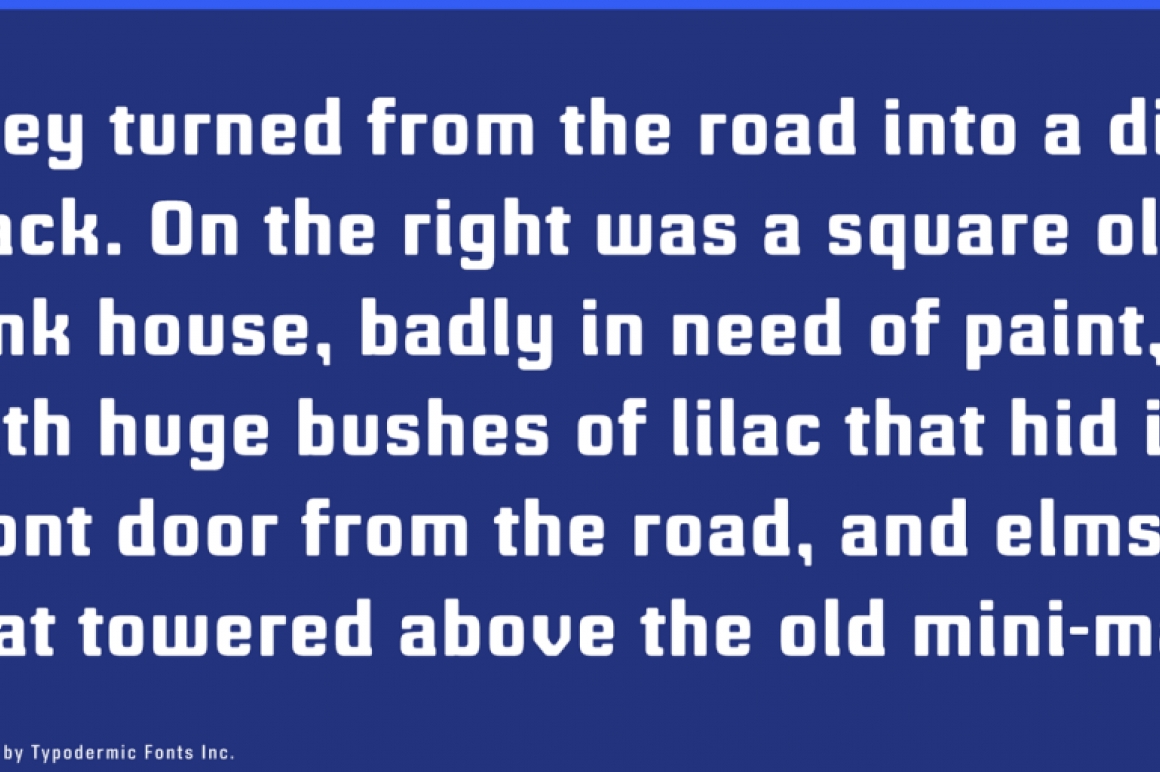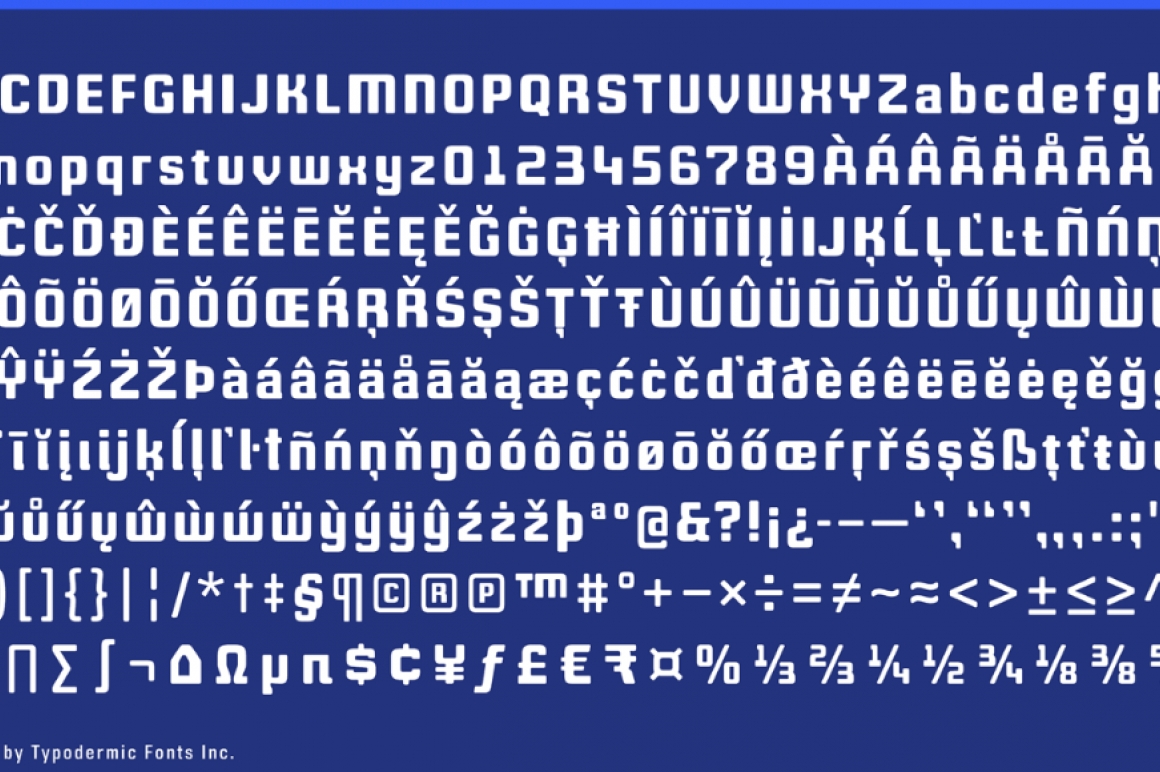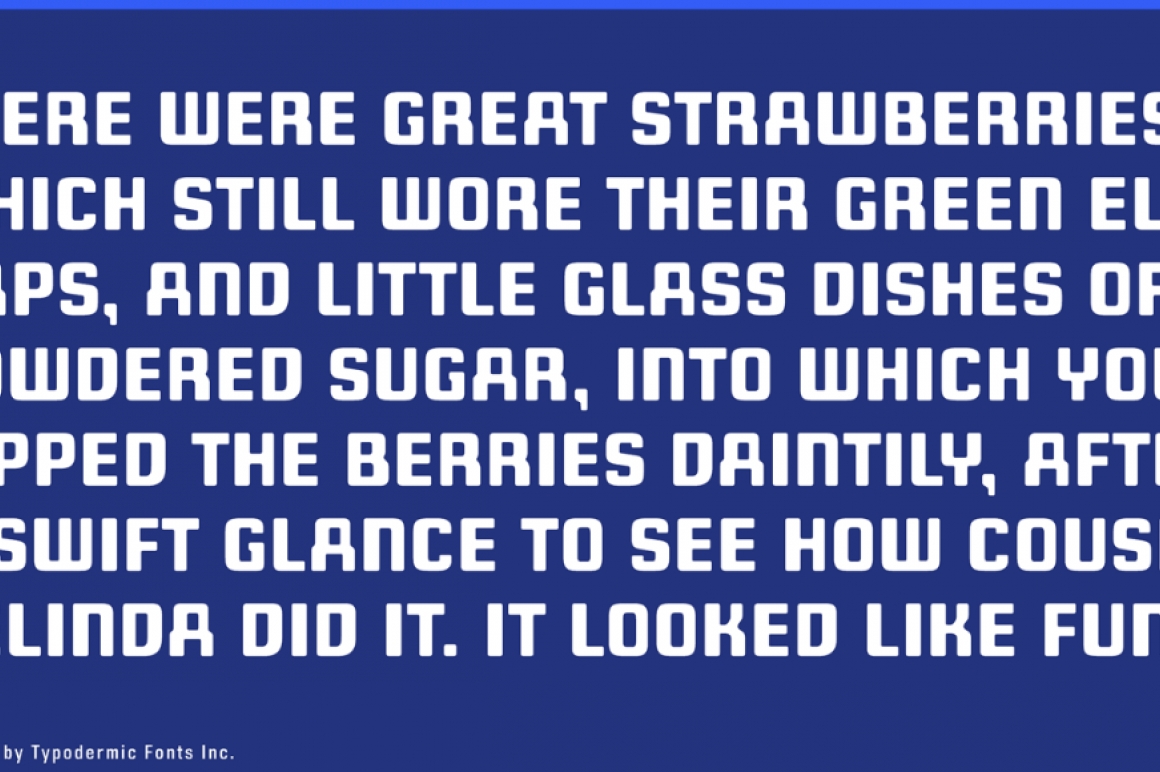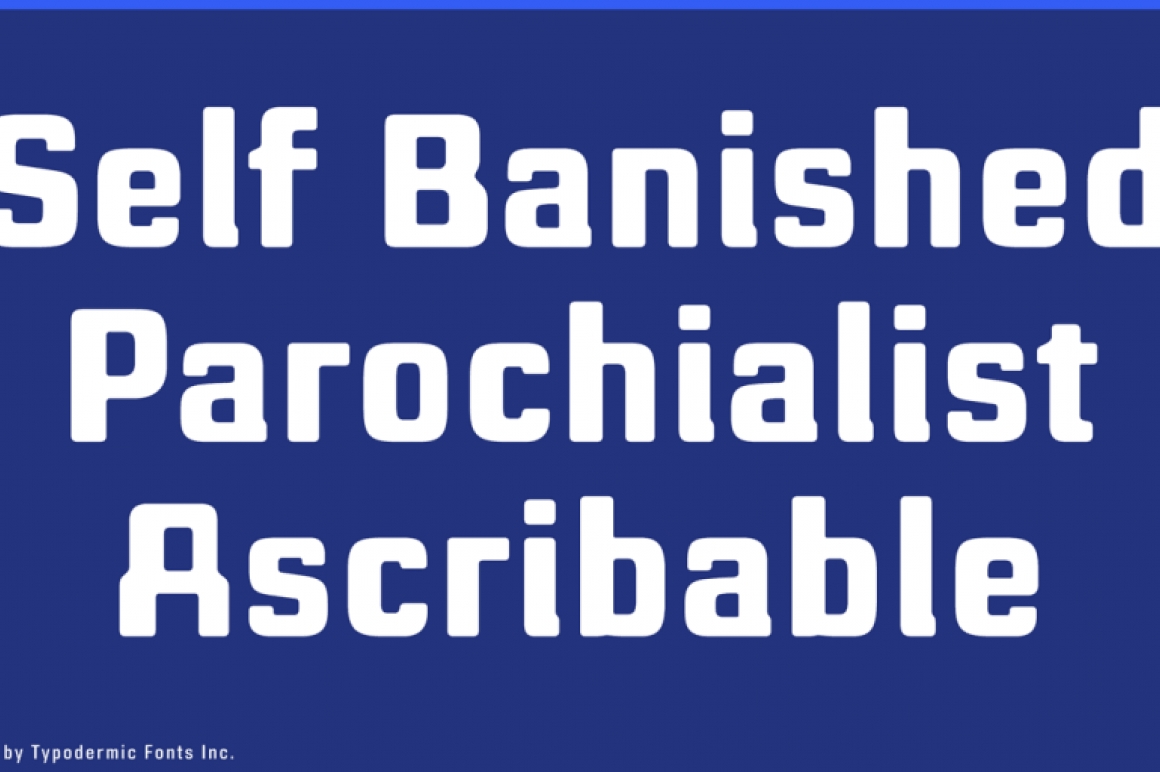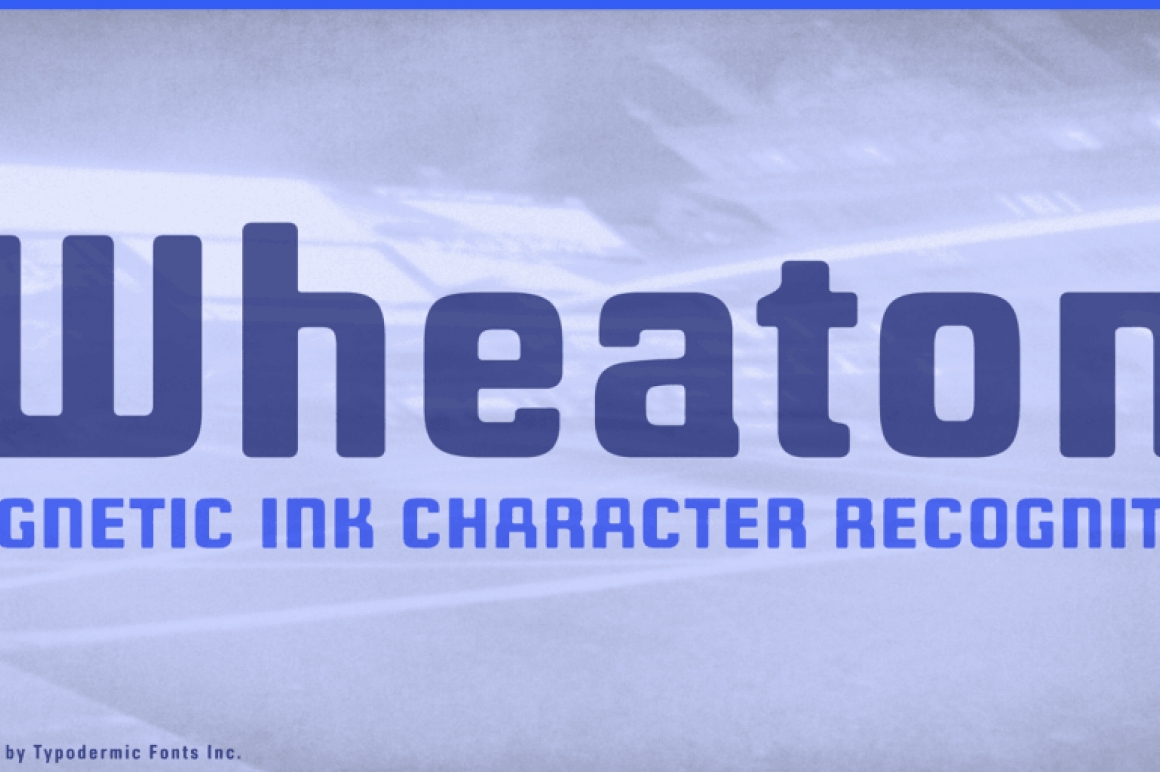
Wheaton Capitals
Wheaton is a new MICR E13B (magnetic ink character recognition) free/not-free blog headline font.
I’ve been experimenting with MICR E13B themes since I started making fonts but this time, the focus was to create a nerdy blog headliner. Since 96% of blogs are nerdy, it only makes sense. I looked to the original masterwork for inspiration: MICR E13B.
MICR E13B contains strictly numerals and control codes: no alphabet. When you see an alphabet done in MICR E13B style, it’s an interpretation based on these numerals. I avoided referencing those even tho they’re SEARED INTO MY BRAIN. The end result is a font with just enough MICR E13B flavor for the nerdiness to flow through but not so much that it impairs headline readability.
Why is MICR E13B nerdy? In the 1960’s and 1970’s, this style was a symbol of high tech modernity. In the 1980’s, magnetic ink was old tech and dot matrix was high-tech. MICR fonts were used to show an ironic, techno future. The Robotron 2084 video game is a good example that fits with the tongue-in-cheek dystopic sci-fi storyline (Data 70).